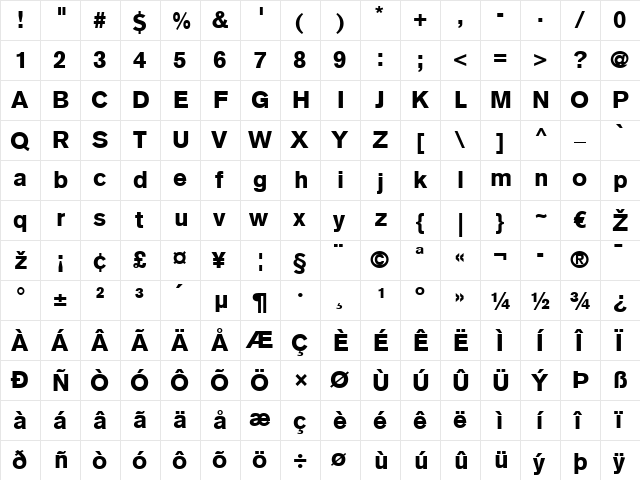
BasicCommercial LT Roman Bold
Design Context for BasicCommercial LT Roman Typeface
BasicCommercial LT Roman offers clean, dependable letterforms without strong stylistic allegiance, making it a practical choice for designers who need flexibility. Its bold stroke weight gives it real presence on the page.